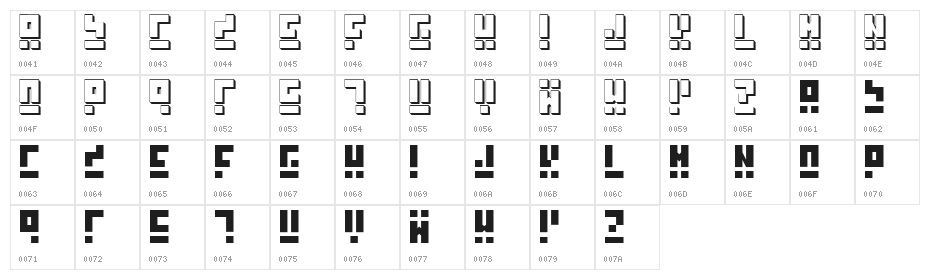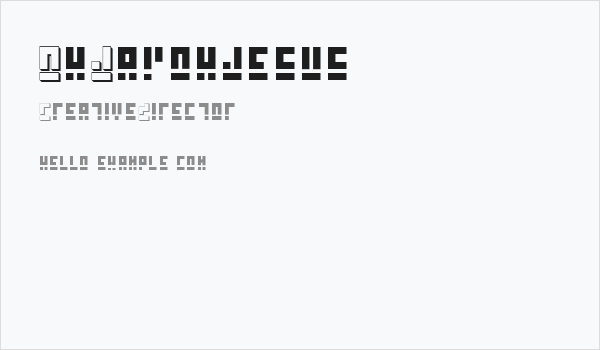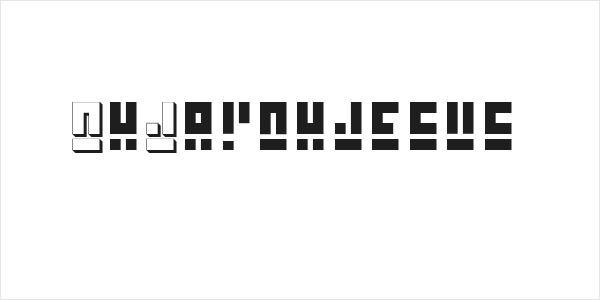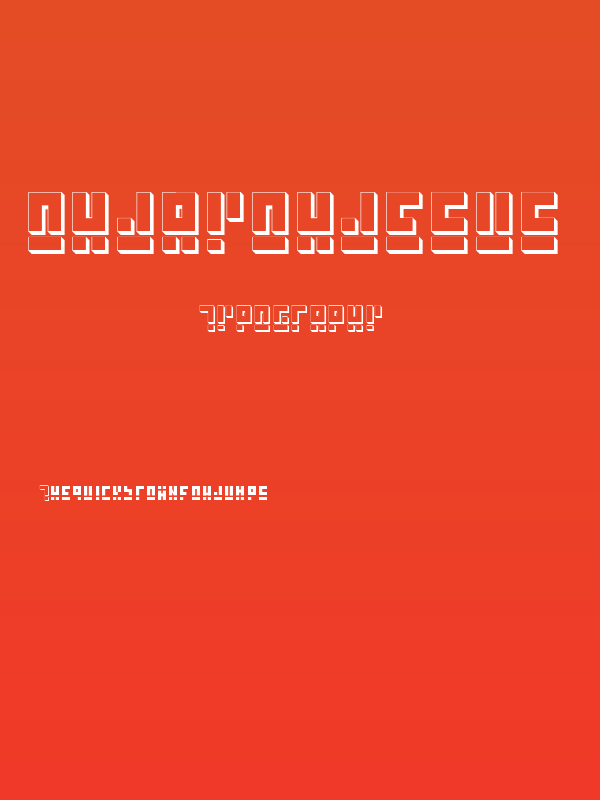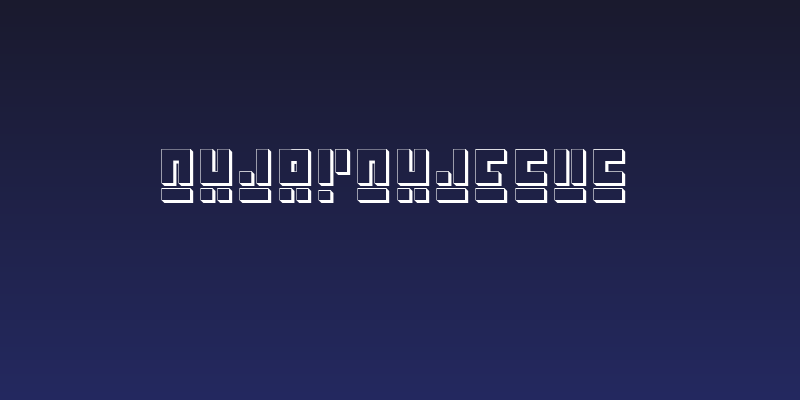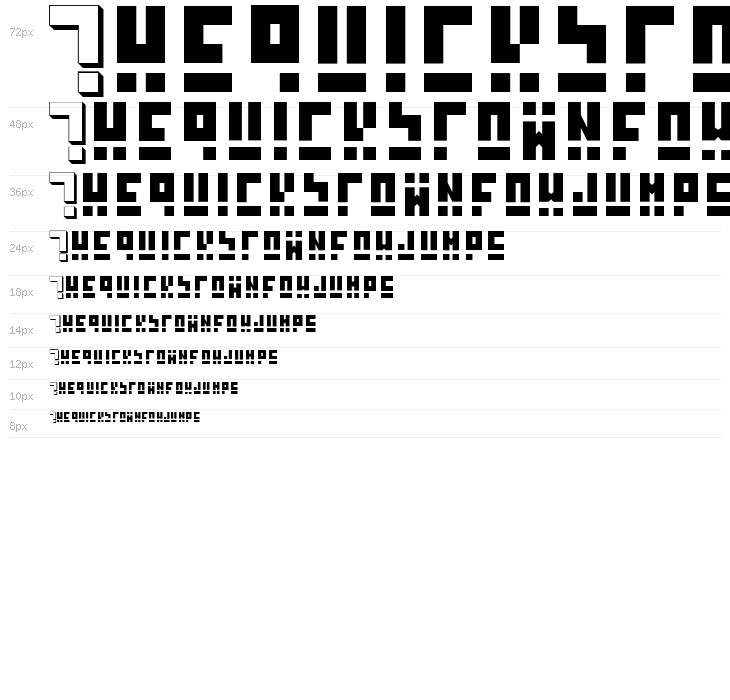
Oh Jay ohjesus Font
Oh Jay ohjesus Description
This font features a bold, geometric design with a futuristic and digital aesthetic. Each character is composed of blocky, angular shapes that create a sense of structure and modernity. The uppercase and lowercase letters maintain a consistent style, with sharp edges and a uniform thickness throughout. The numerals and special characters follow the same design principles, ensuring a cohesive look across all glyphs. The font's unique style makes it stand out, offering a distinct visual impact that is both eye-catching and memorable.
| Proposed Projects | Ideal for technology branding, video game titles, sci-fi movie posters, and digital art projects. |